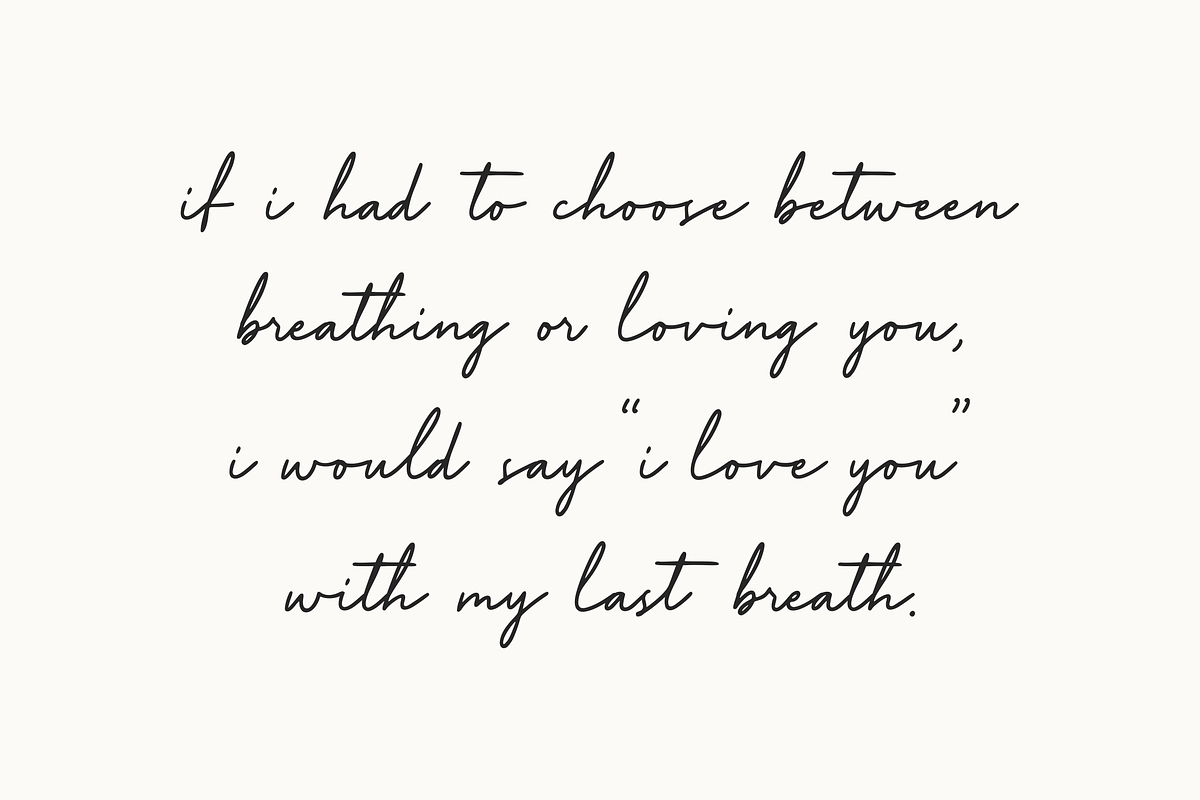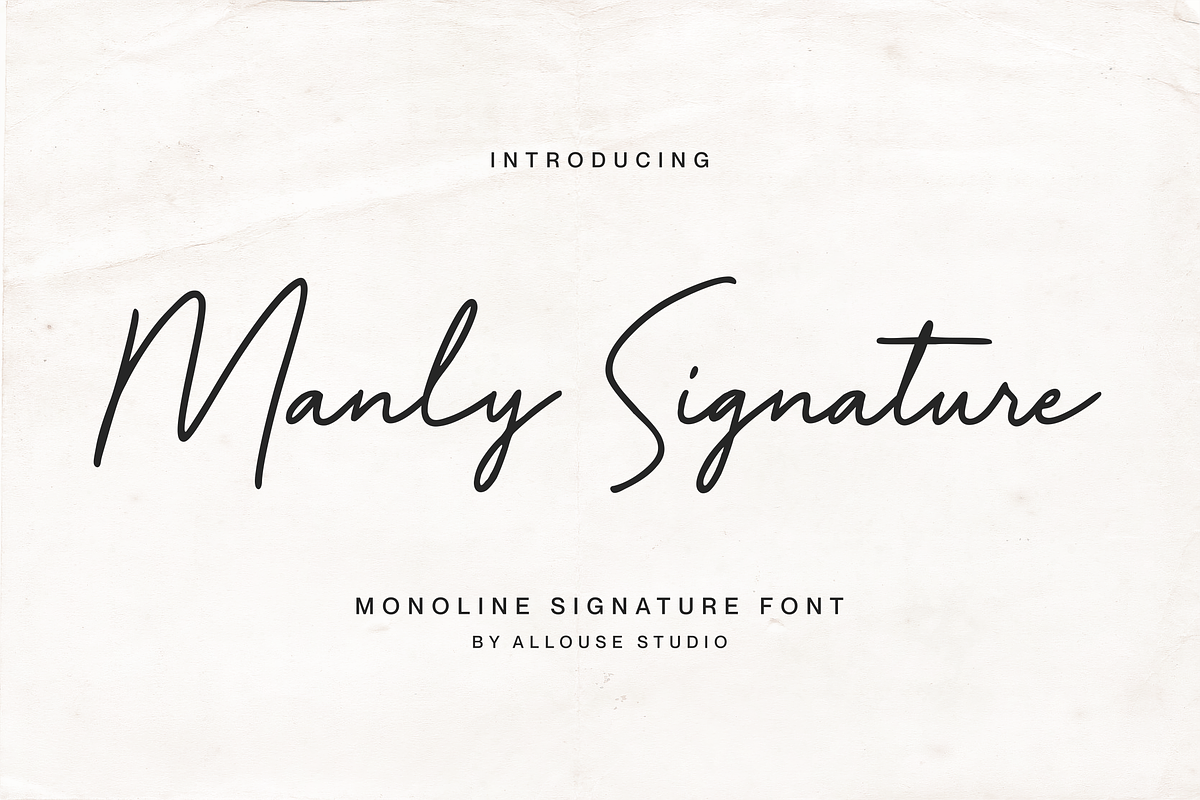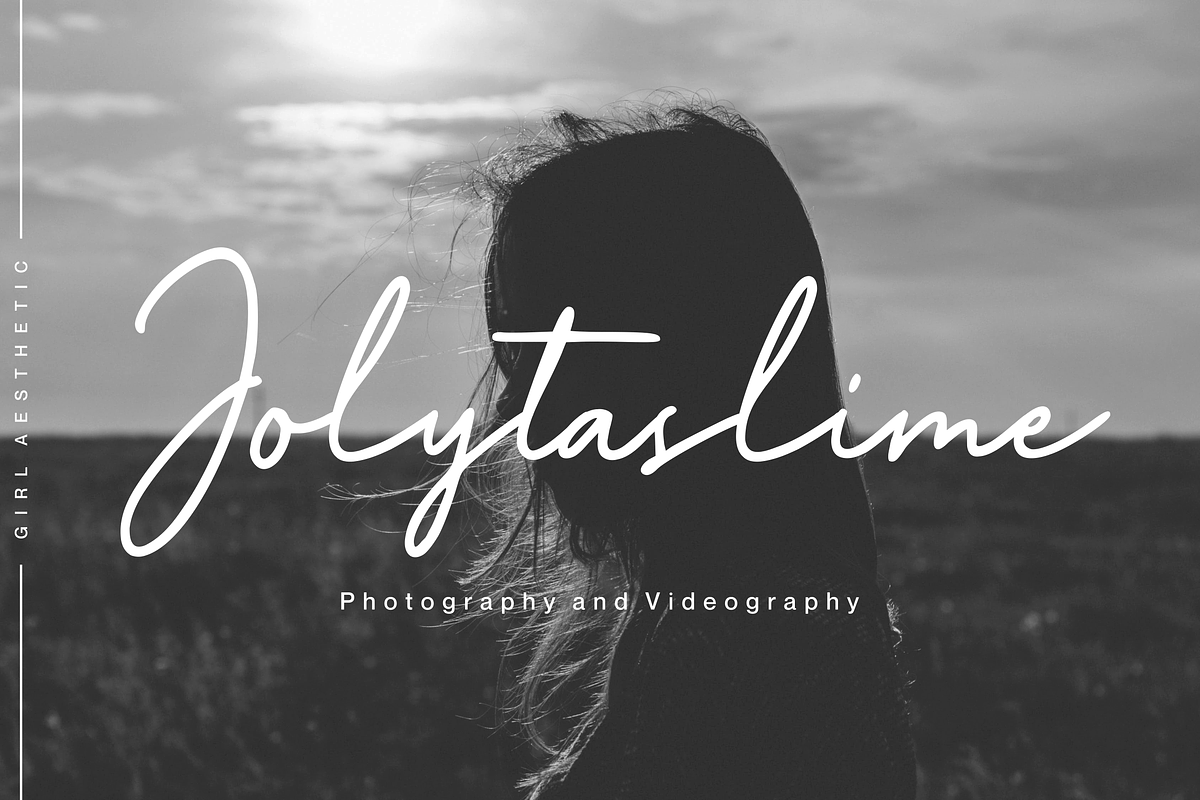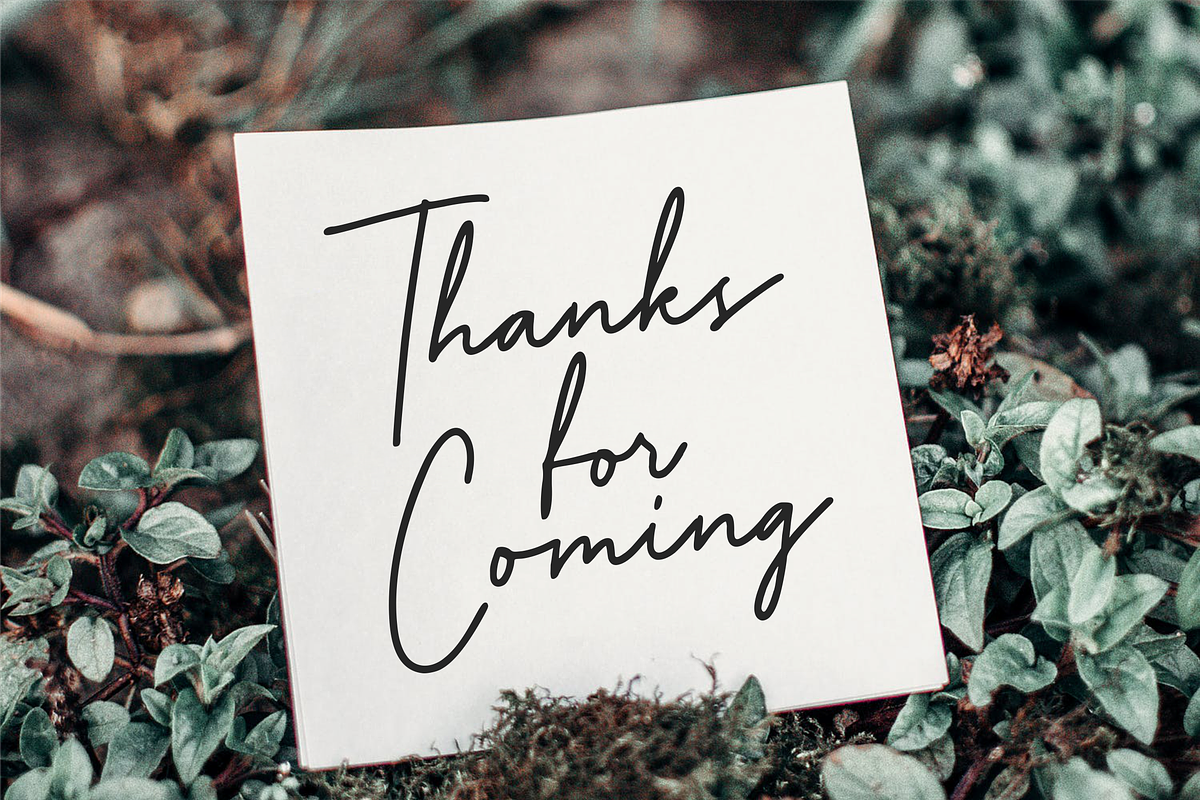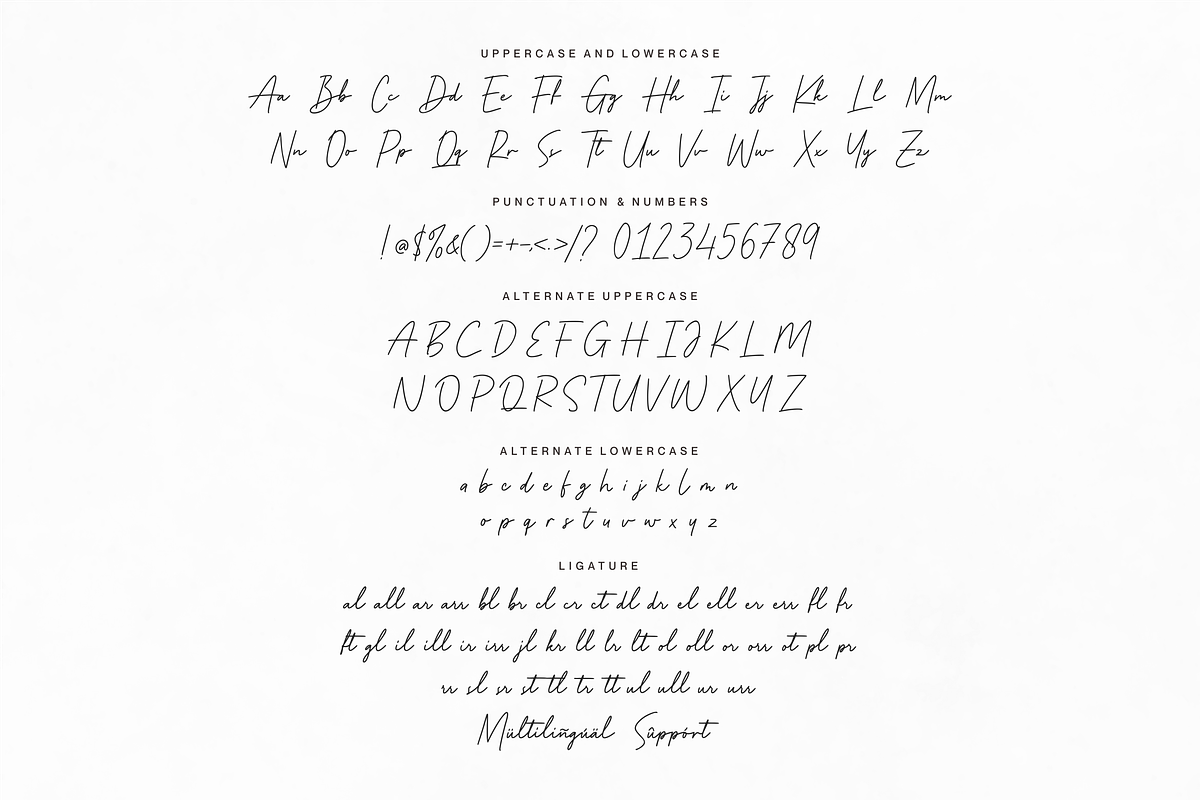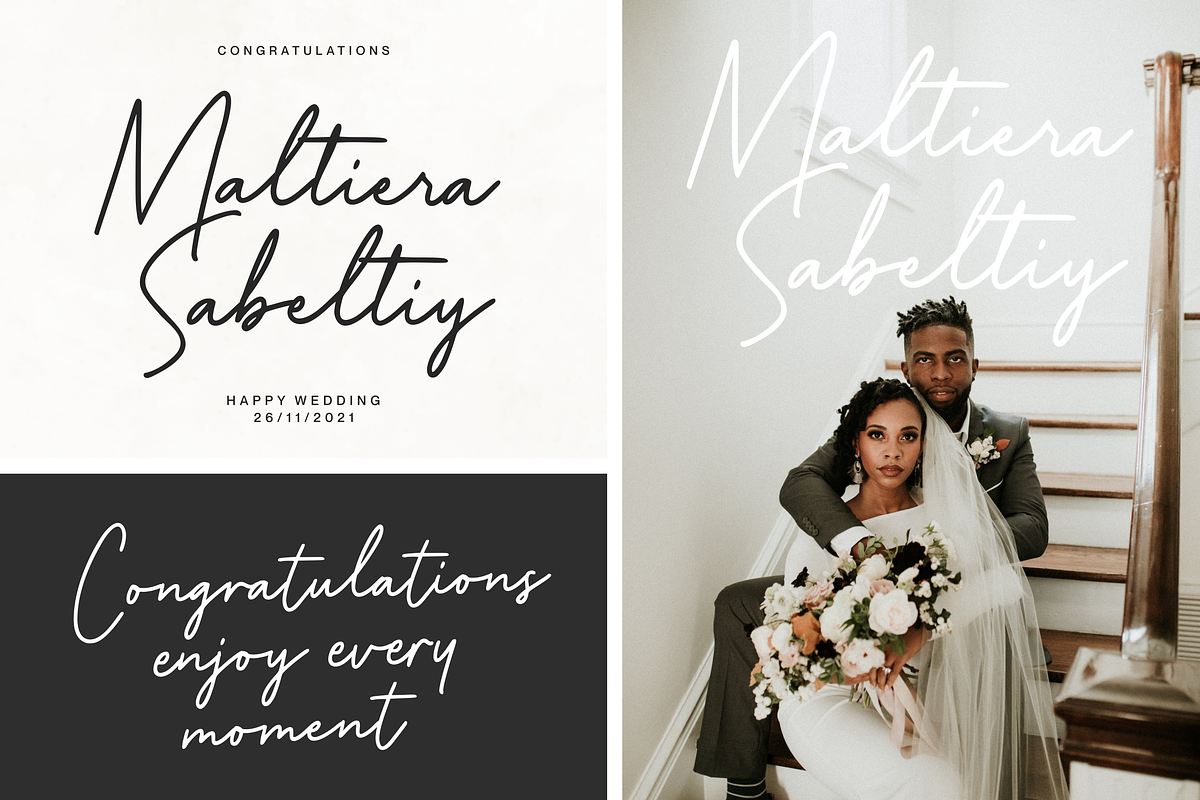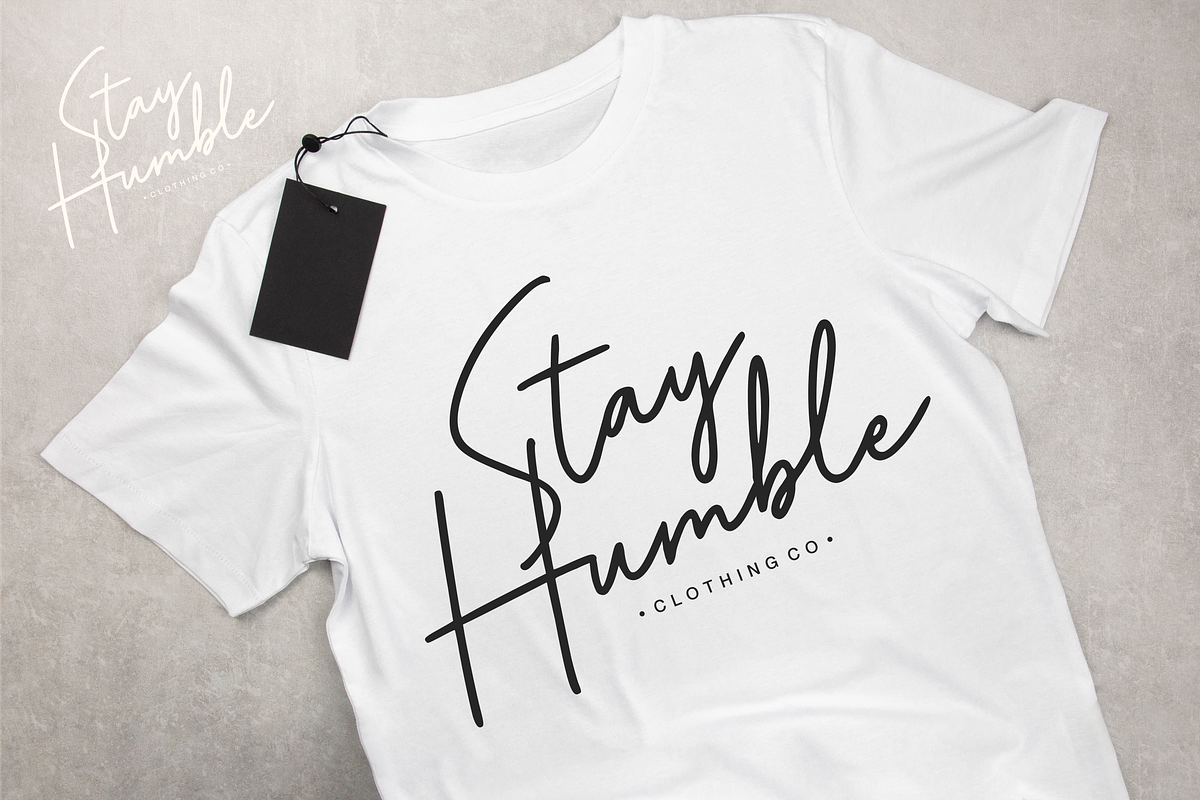
Manly Signature
Proudly Present, Manly Signature a Monoline Signature Font
Manly Signature is perfect for any titles, logo, product packaging, branding project, magazine, social media, wedding, or just used to express words above the background.
Manly Signature also come with Multi-Lingual Support.
Hard to find a handwriting script font that is readable, which this one is. But when I purchased the font, the letter sizes are so small that I had to put the point size at 36 to get an x-height equivalent to a 12-pt Minion. This gives me ginormous spaces between words, which means it's not useful for anything other than single-word titles without kerning every single word in a sentence. Disappointing.